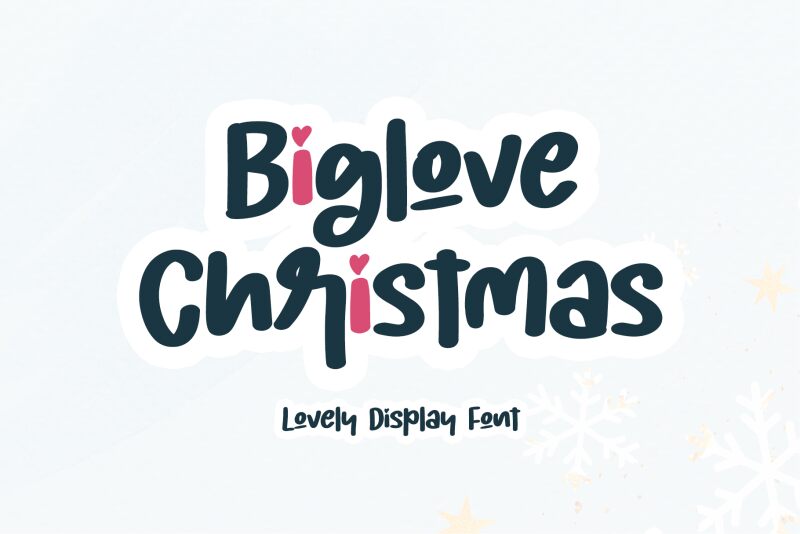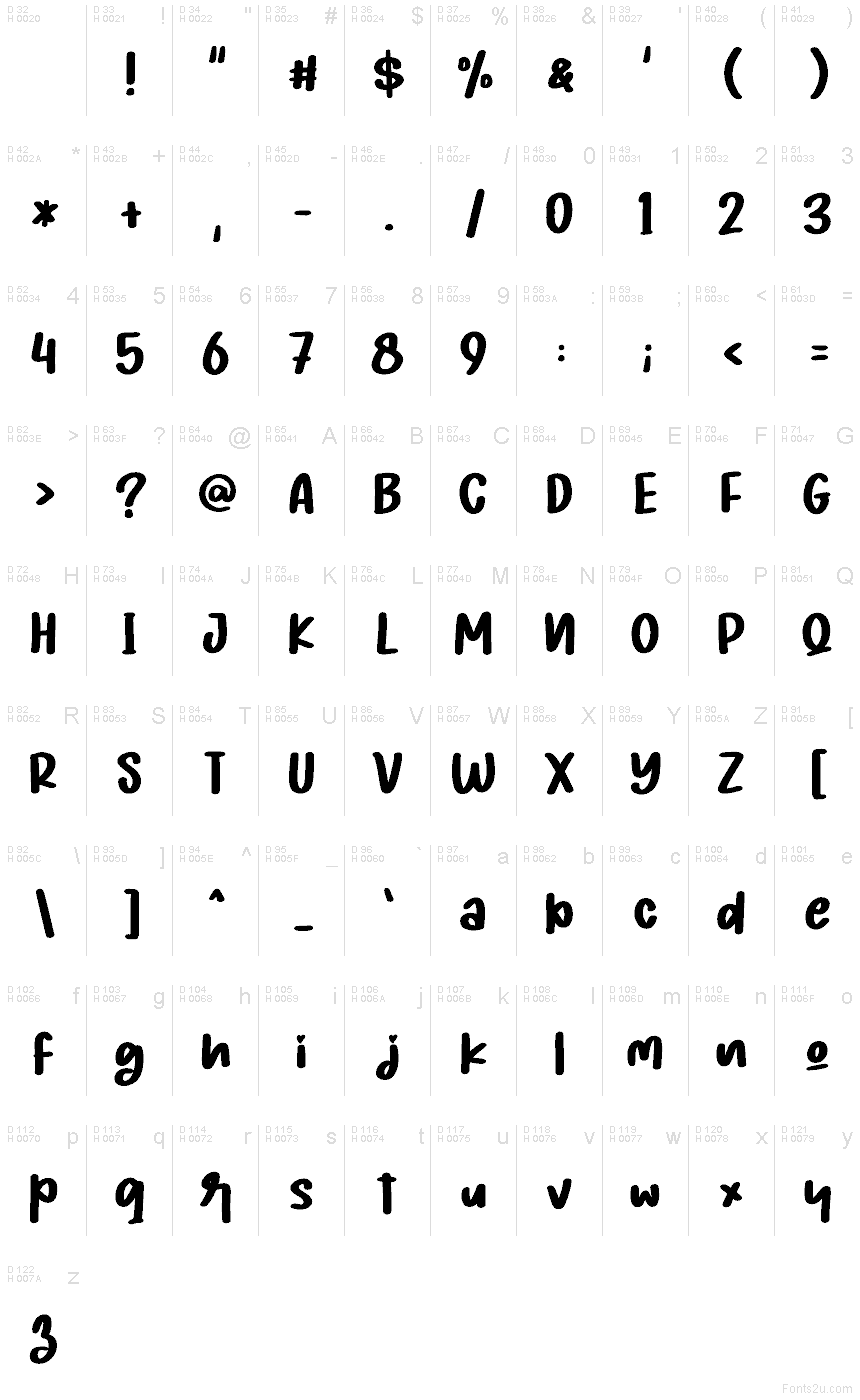
Biglove Christmas - Personal Us
Biglove Christmas font by Letterafa Studio is a free handwritten typeface that wraps every word in cozy, festive energy. Chunky strokes, rounded curves, and tightly nestled letters feel like they were painted with a thick marker on a gift tag, giving your designs a warm, homemade touch. The letters bounce gently along the line, adding just enough playfulness without becoming messy or hard to read.
Using Biglove Christmas, you can bring this friendly, inky charm to greeting cards, holiday social posts, gift labels, mugs, party invitations, and seasonal packaging. This free font works beautifully as a bold headline with a clean sans serif underneath for small details. Set it large to let the soft curves and dense texture shine, and your Christmas projects instantly feel more personal and heartwarming.